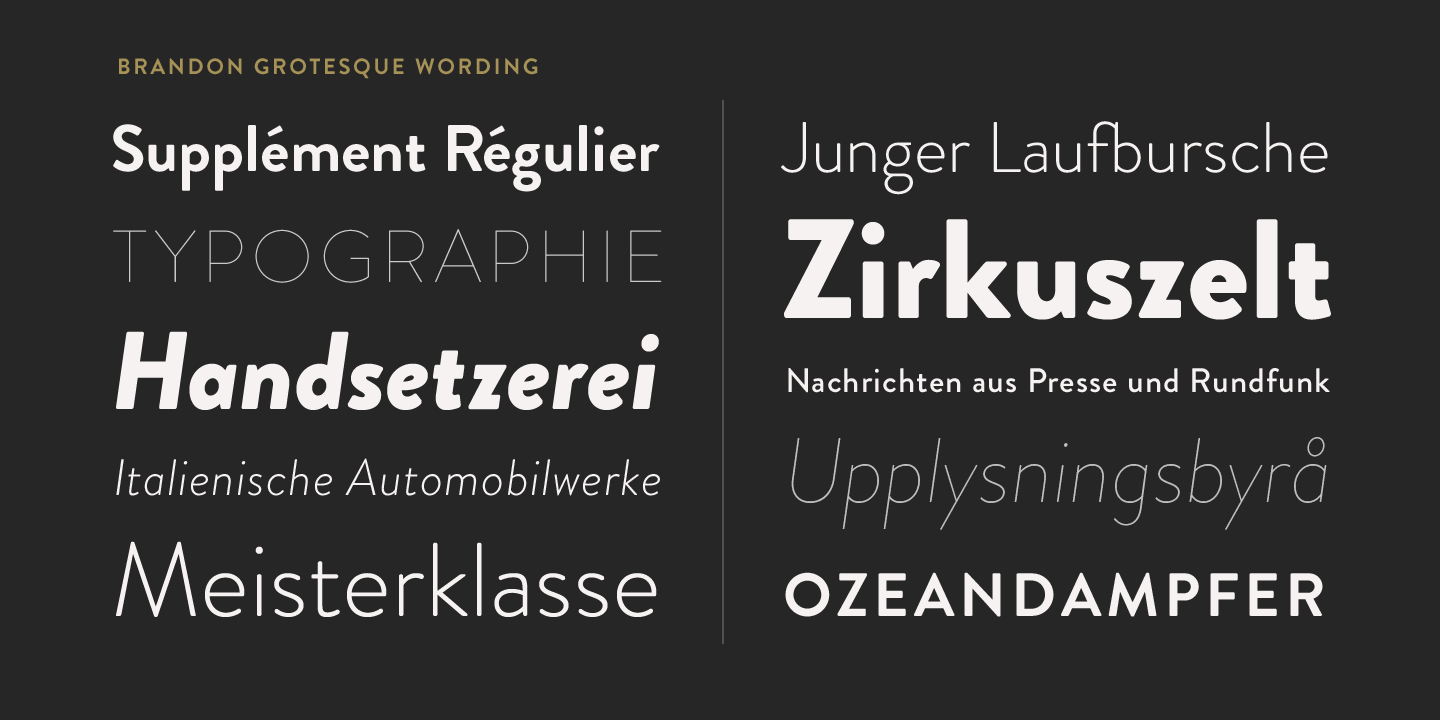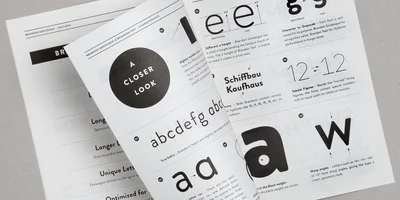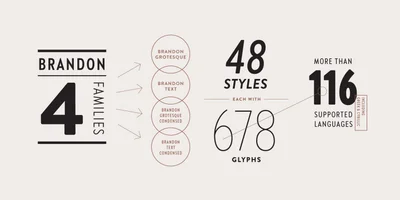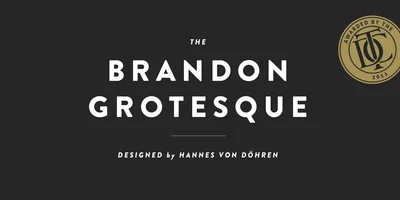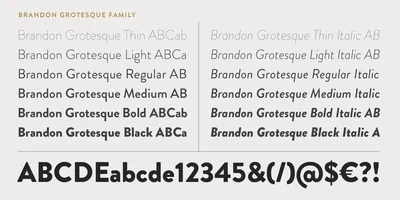
Brandon Grotesque vs Sofia Pro
Brandon Grotesque and Sofia Pro are both sans-serif typefaces sharing a geometric foundation. Where Brandon Grotesque leans elegant, monoline, Sofia Pro brings rounded. Compare which suits your Branding project.
Recommended: Brandon Grotesque
- elegant, monoline design character
- Suited for Editorial and Retail
Consider: Sofia Pro
- rounded design character
- Suited for Apps and Advertising